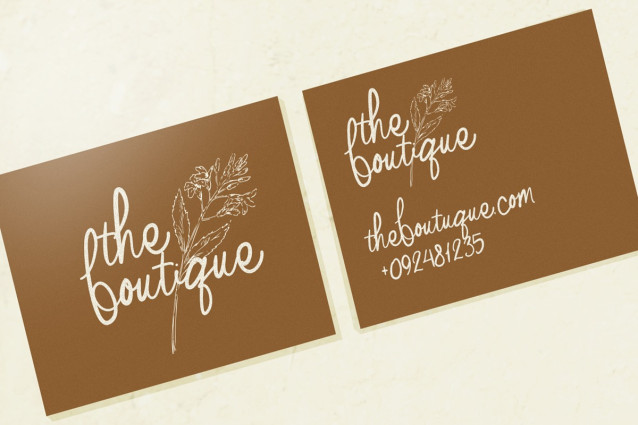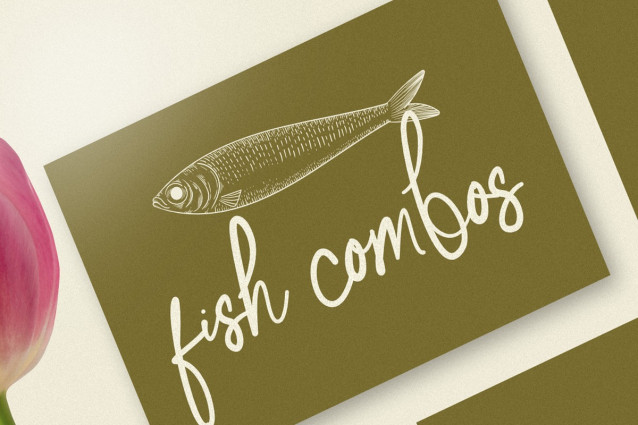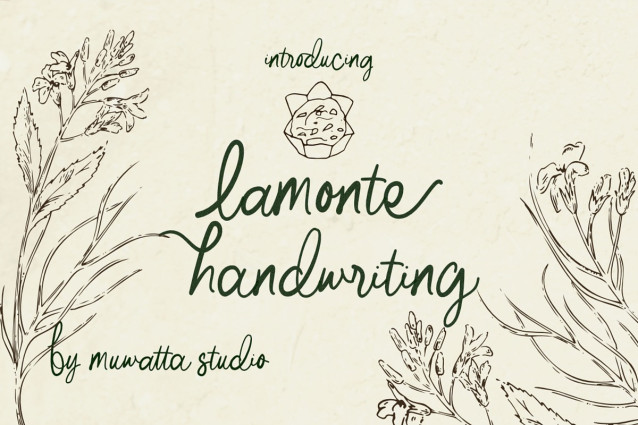
Lamonte Handwriting Font
Lamonte Handwriting Font, a charming and playful typeface designed to bring a touch of whimsy and organic flow to your projects. With its natural, free-flowing strokes and imperfect elegance, Lamonte evokes the warmth and authenticity of handwritten text, making it perfect for those seeking a personal, handcrafted feel.
Ideal for organic brands, creative packaging, and whimsical designs, Lamonte Handwriting adds a delightful, artistic touch to any project. Its fluid letterforms are perfect for crafting invitations, social media graphics, or branding that needs a unique, human touch. Embrace the beauty of imperfection with Lamonte, where every stroke feels alive and full of personality.